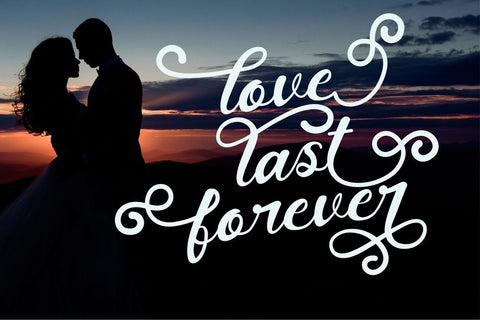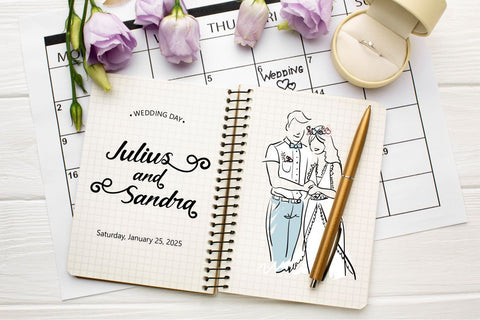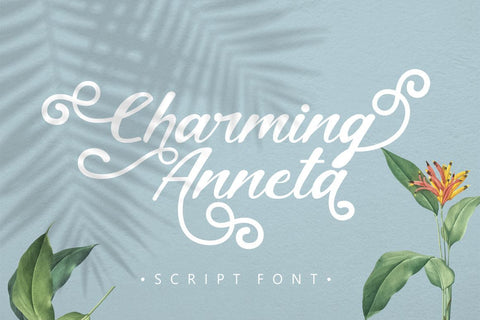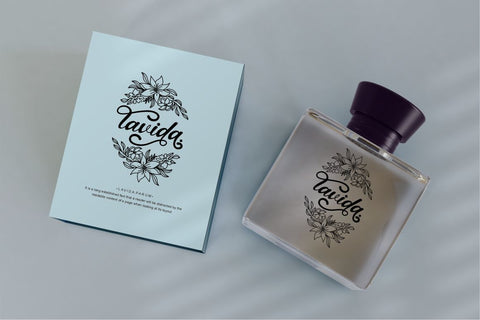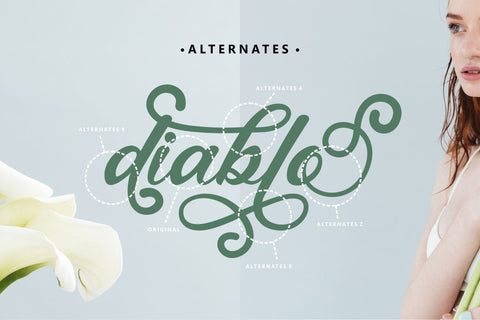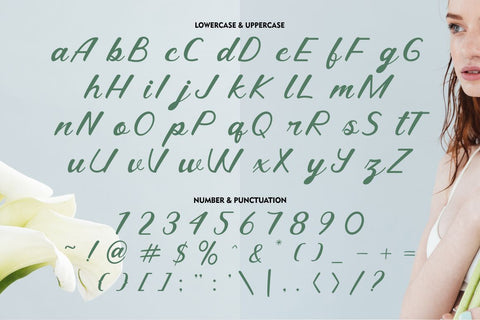
Charming Anneta - Script Font
Charming Anneta is a modern script and wedding font. This font is feminime, elegant, messy and modern. This font has beautiful alternates, swirls that are very subtle and warm. Suitable for your various projects.
Charming Anneta perfect for wedding event, anniversary, birthday, greeting cards, logotype, branding, wedding invite and card, elegant logo, poster, packaging, stationery, website, and any other projects requiring a handwritten and luxurious touch.
Come with open type feature with a lot of alternates, its help you to make great lettering.
This font is also support multi language.
- Alternate
- Number, Punctuation And Symbols